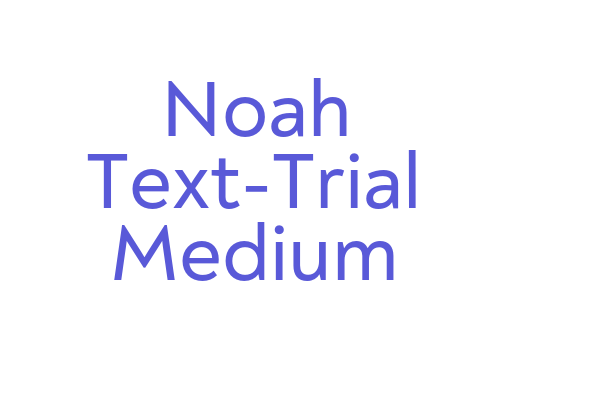
Noah Text-Trial Medium is a sleek and modern sans serif font from the Noah Text-Trial font family. Designed by Svet Simov, Radomir Tinkov, and Stan Partalev, this font is perfect for creating clean and professional designs. Its medium weight makes it versatile for use in various design projects, making it a great choice for both print and digital applications.
Font Name: Noah Text-Trial Medium
Designer: Svet Simov, Radomir Tinkov, Stan Partalev
Font Family: Noah Text-Trial